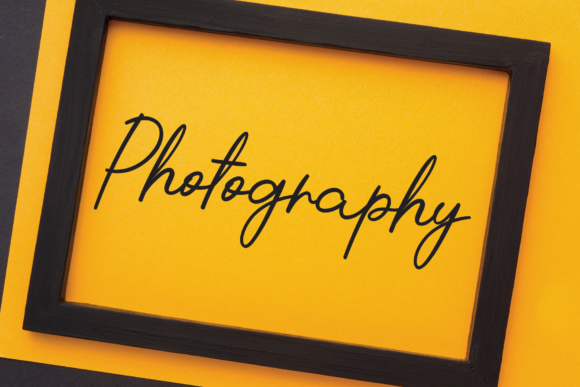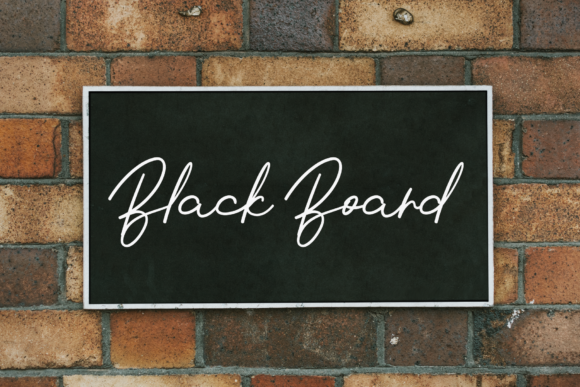
Willian Smitson Font
db-ku.com - Script & Handwritten -- Willian Smitson is a beautiful and flowing handwritten font. Use it for wall hangings, wedding invitations, social media post logos,